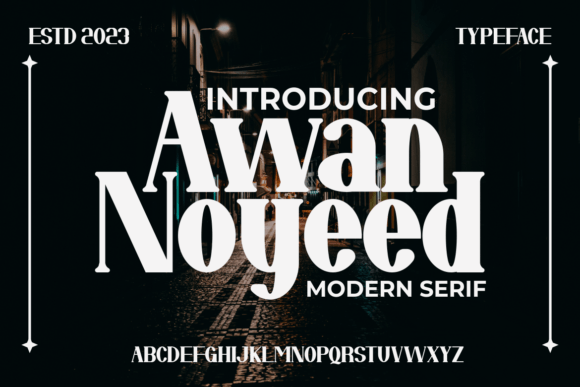
A Game-Changing Font: Awan Noyeed
Awan Noyeed is a modern and clean serif font that has become a staple in my design toolkit. Its sleek and sharp lines give it a contemporary edge, while its classic serif elements make it a versatile choice for a wide range of applications. Whether you’re working on a print or digital project, this font is sure to make your work stand out. ✅
• ✨ Clean and modern design: Awan Noyeed’s sleek lines and classic serif elements make it perfect for projects that require a touch of sophistication.
• ✅ Versatility: This font is suitable for a wide range of applications, from print to digital designs.
• 💡 Easy to read: Awan Noyeed’s clear and concise design makes it easy to read, even at small font sizes.
While Awan Noyeed is an excellent font, it’s not without its quirks. 🤔 For example:
• ⚠️ Limited availability of OpenType features: Awan Noyeed has some OpenType features, but they’re limited compared to other fonts.
• ⚠️ May not be suitable for body text: While Awan Noyeed is easy to read, it may not be the best choice for large blocks of body text.
Exploring OpenType Features, Glyphs, and Stylistic Alternates
Awan Noyeed has some OpenType features, including:
• Ligatures: Awan Noyeed has a range of ligatures that can be used to enhance the font’s appearance.
• Stylistic alternates: The font has several stylistic alternates that can be used to add variety to your text.
The Designer Inspiration Behind Awan Noyeed
Awan Noyeed was designed with the goal of creating a modern and clean serif font that would be suitable for a wide range of applications. The designer drew inspiration from classic serif fonts, while incorporating modern elements to give the font a fresh feel.
Q: What is Awan Noyeed font?
A: Awan Noyeed is a modern and clean serif font designed for a wide range of applications, from print to digital designs.
Q: Is Awan Noyeed suitable for body text?
A: While Awan Noyeed is easy to read, it may not be the best choice for large blocks of body text. It’s better suited for headings and titles.
Q: Is Awan Noyeed available in different weights?
A: Awan Noyeed is available in a range of weights, making it suitable for a variety of applications.